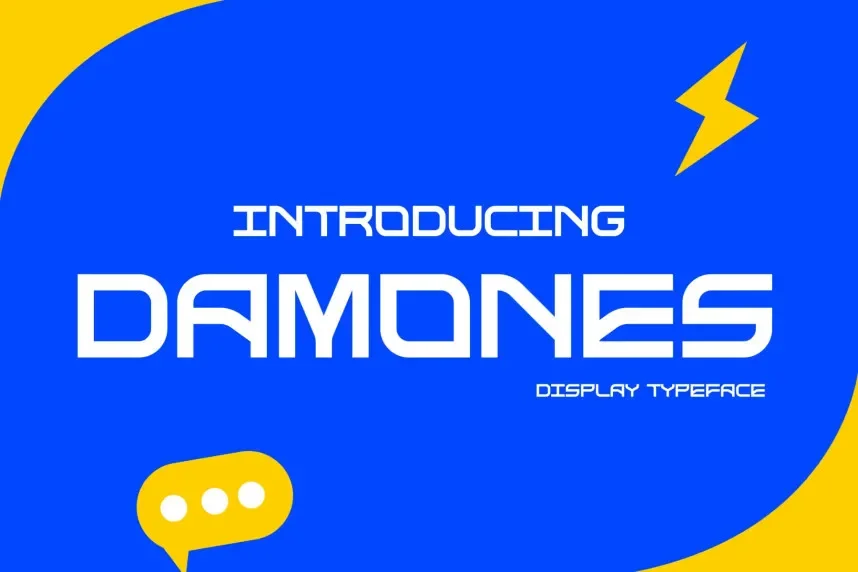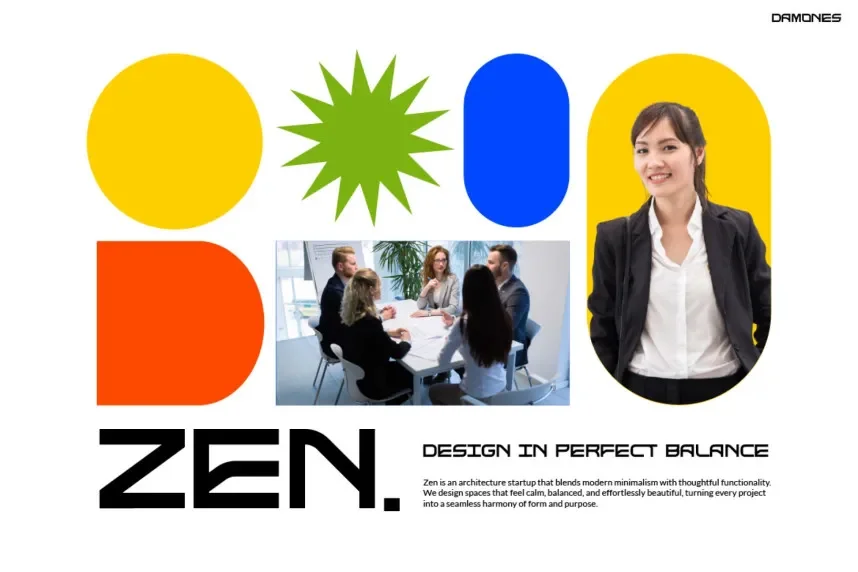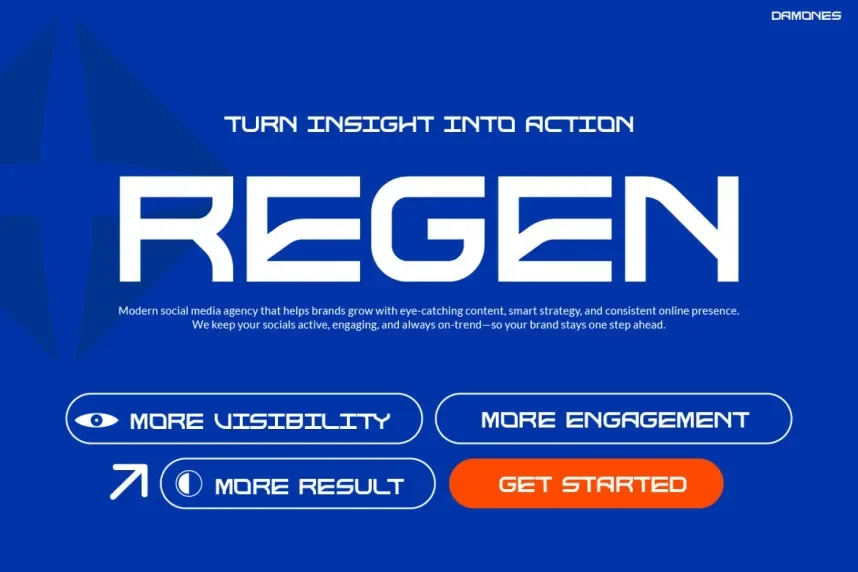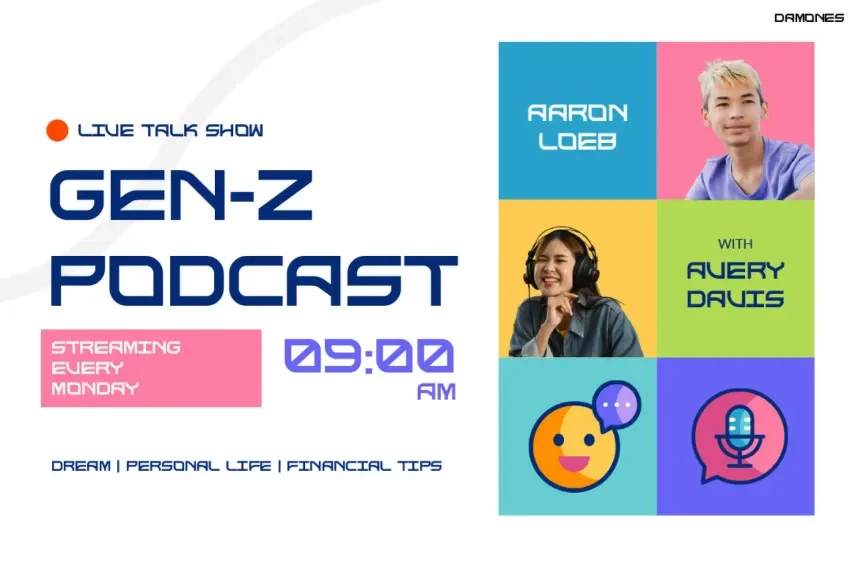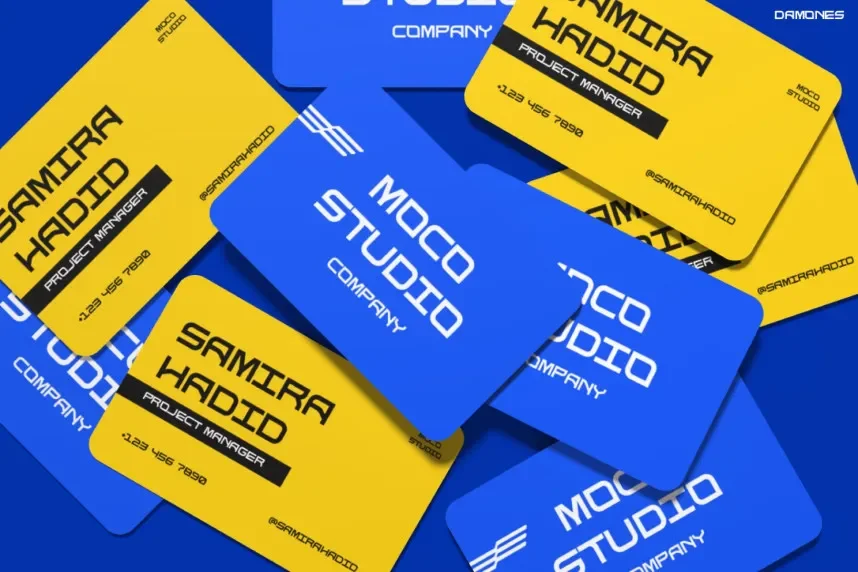
Damones Font is a script typeface with connected letterforms, smooth curves, and moderate stroke variation. The font mimics natural handwriting through slight slanting and fluid connections. It includes basic ligatures that improve letter flow while keeping spacing controlled for short text readability.